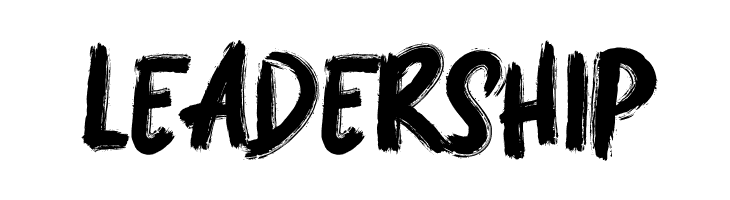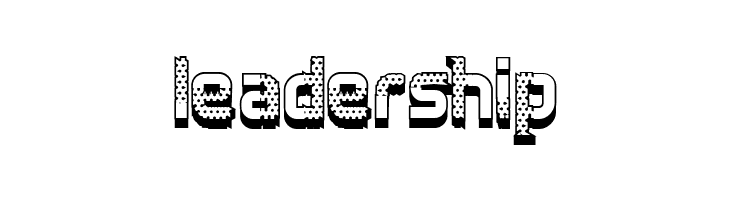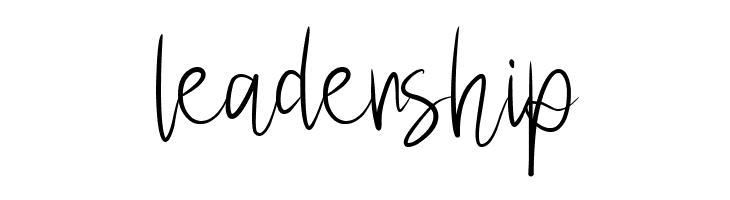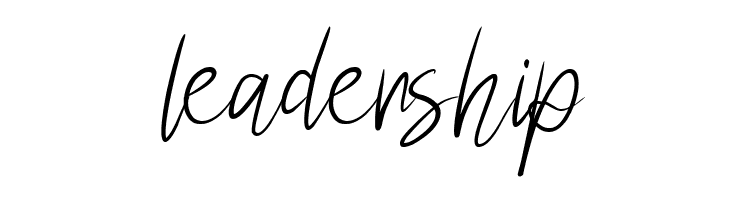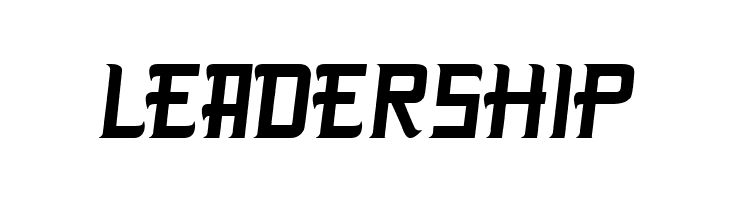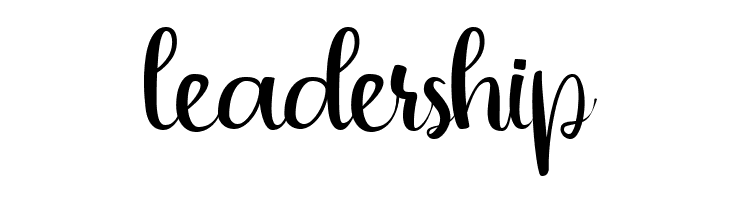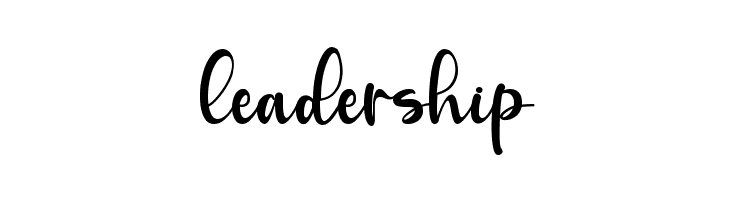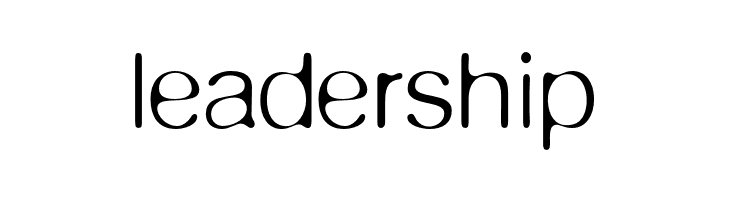
A bold, three-dimensional font with deep shadow effects for standout text.
A bold, shadowed font with a modern, geometric style.
A bold, shadowed font with a three-dimensional effect, perfect for impactful designs.
A bold, dripping font with a liquid-like, dramatic style.
A dynamic and fluid script font with elegant curves and a playful style.
A bold, expressive brush-style font with dynamic strokes and artistic flair.
A decorative font with whimsical aquatic-themed illustrations for each character.
A lively, cursive script font with elegant connections and dynamic contrast.
A lively, handwritten font with fluid, elongated strokes and a casual elegance.
A bold, handwritten font with fluid, cursive strokes and a playful style.
A bold, italic handwritten font with fluid, connected strokes.
A dynamic, handwritten cursive font with elegant slant and varied stroke thickness.
A modern serif font with high contrast and elegant serifs.
A bold, flowing script font with elegant curves and dynamic style.
A bold, dynamic font with slanted characters and a modern, energetic style.
A lively and elegant script font with flowing curves and dynamic slant.
An elegant script font with fluid, cursive strokes and a refined, artistic feel.
A lively, expressive script font with a modern, handwritten style.
A playful, rounded font with smooth curves and a friendly style.
A playful, rounded font with smooth curves and a friendly appearance.
A bold, playful font with rounded edges and a whimsical touch.
A bold, playful font with rounded edges and a whimsical style.
A playful, handwritten-style italic font with smooth, rounded strokes.
A bold, rounded font with a playful and approachable style.
A bold, rounded font with a playful and modern style.
A bold, rounded font with a playful and bubbly style.
A bold, rounded font with a playful and inviting design.
A modern, rounded font with consistent stroke width and friendly appearance.
A modern, rounded font with consistent stroke width and a playful aesthetic.
A rounded, smooth font with uniform strokes and a friendly appearance.
A rounded, modern font with smooth curves and consistent stroke width.
A bold, decorative font with a 3D effect and dotted texture.